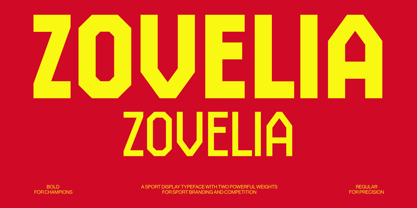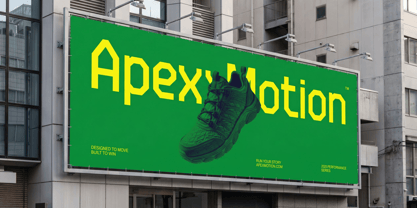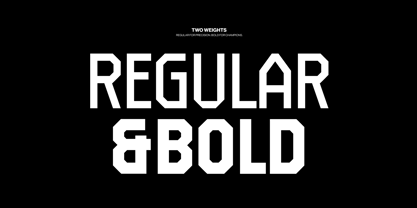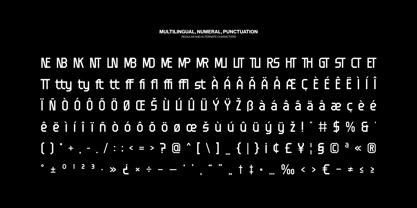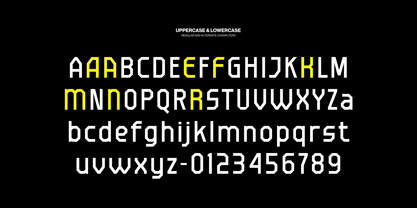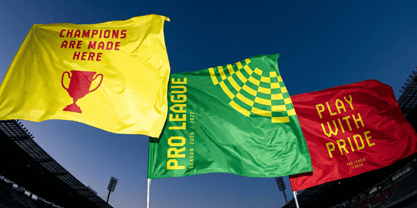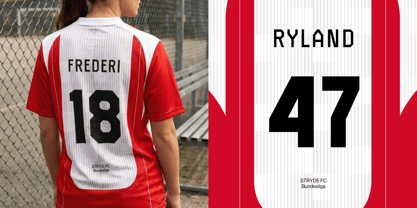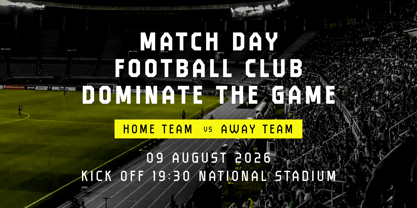
Zovelia
by Imoodev
Zovelia is a geometric sport display typeface built for maximum visual impact. The letterforms are constructed on a tall, condensed frame with strong vertical emphasis, giving every word a stacked, powerful presence, ideal for jersey numbers, scoreboards, and stadium signage.
This font features angled, faceted cuts at the terminals instead of sharp right angles, creating a faceted, "cut metal" or technical badge look.
• Two weights — Regular (for precision, tighter counters, cleaner lines) and Bold (thicker strokes, tighter spacing, built for "champion" level impact headlines).
• Zovelia font perfect for industrial, athletic, football/soccer branding, esports logos, race numbers, gym apparel, and championship posters.